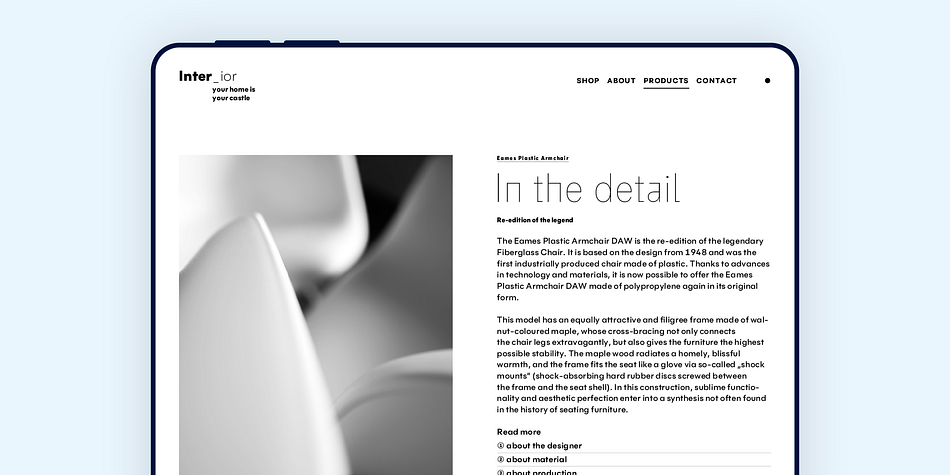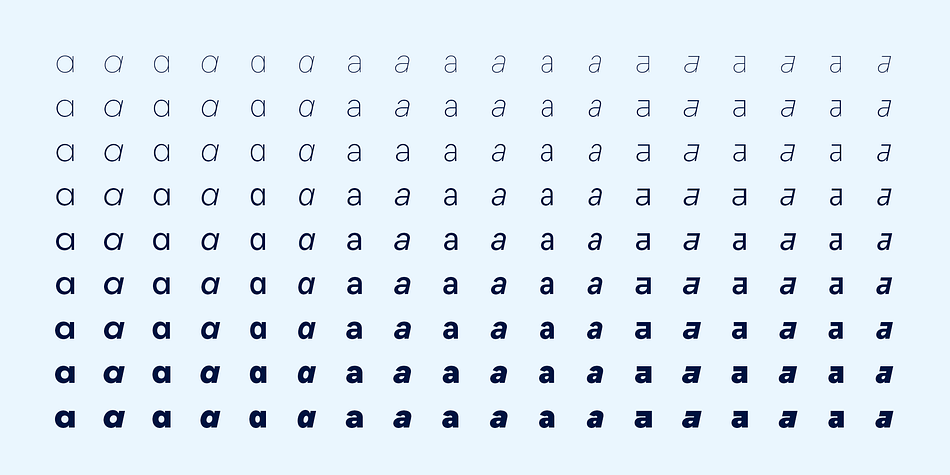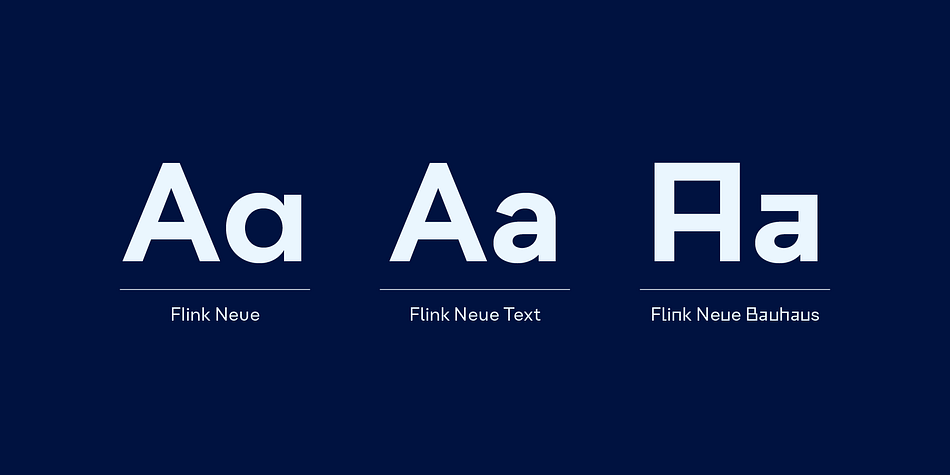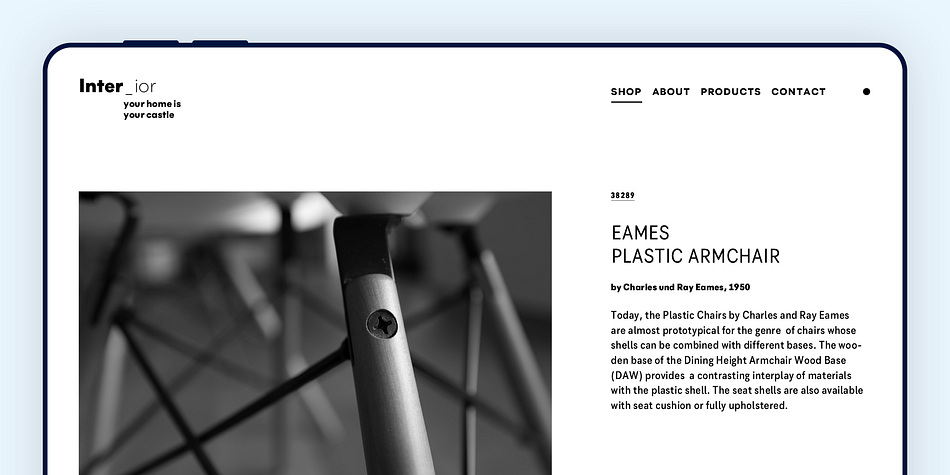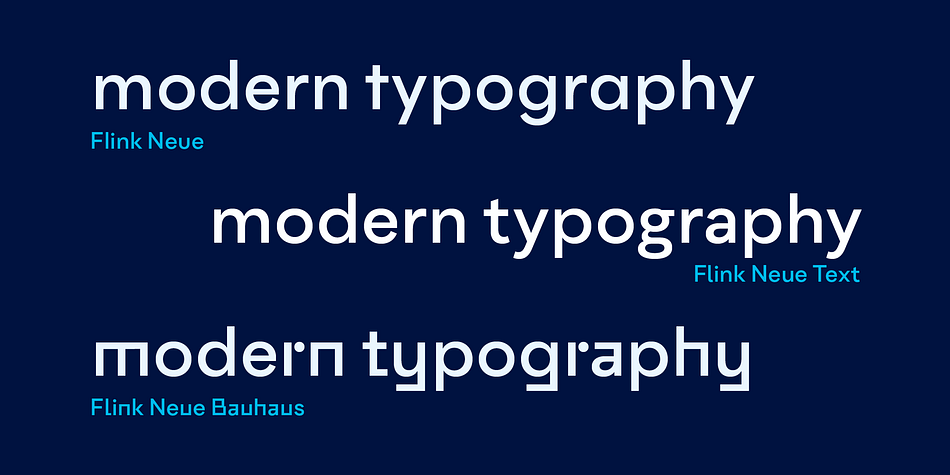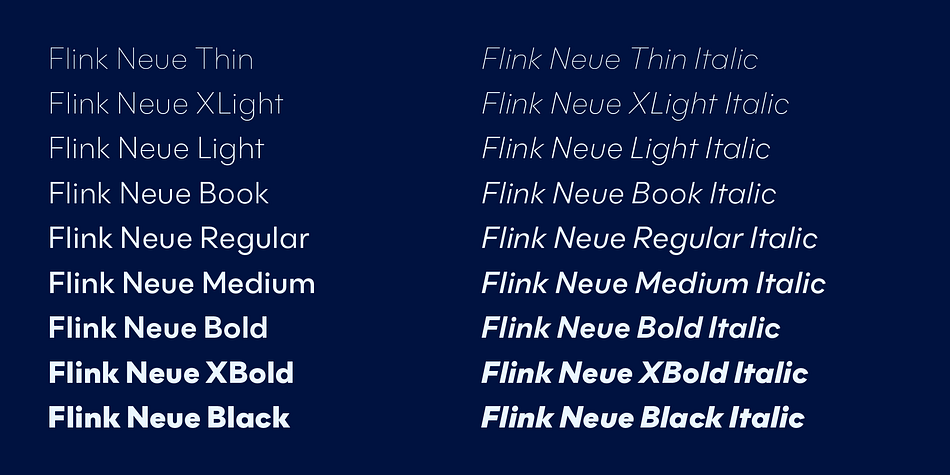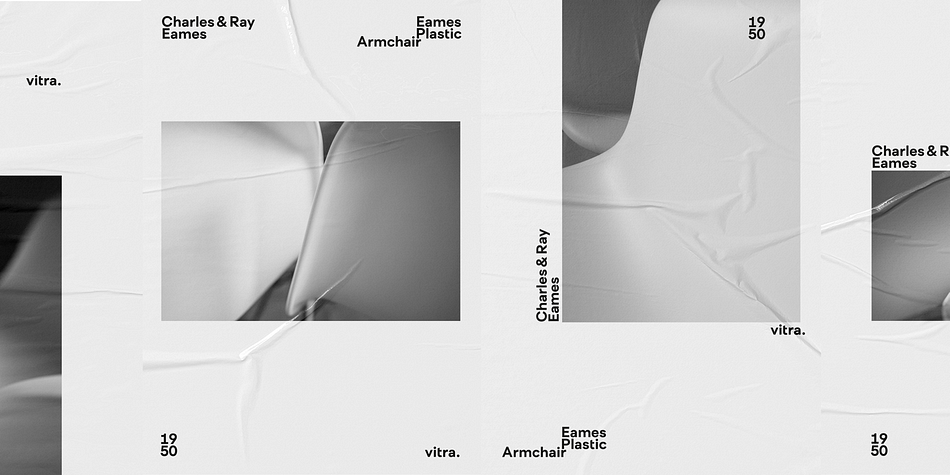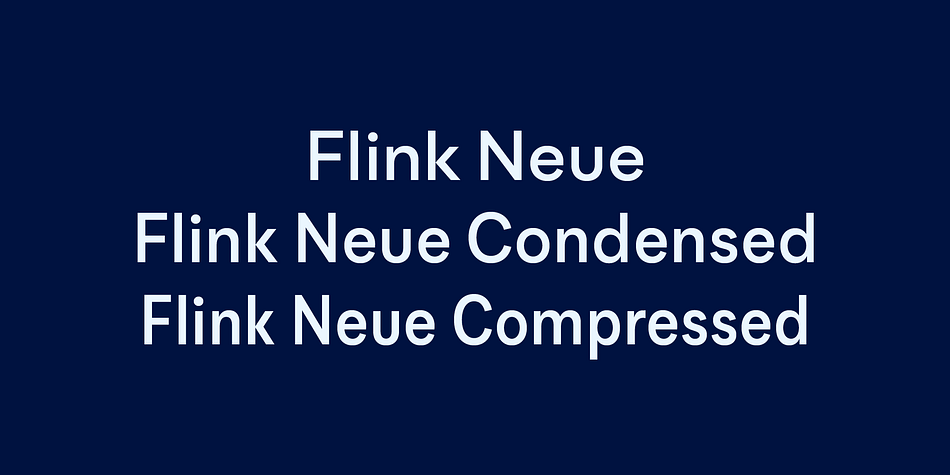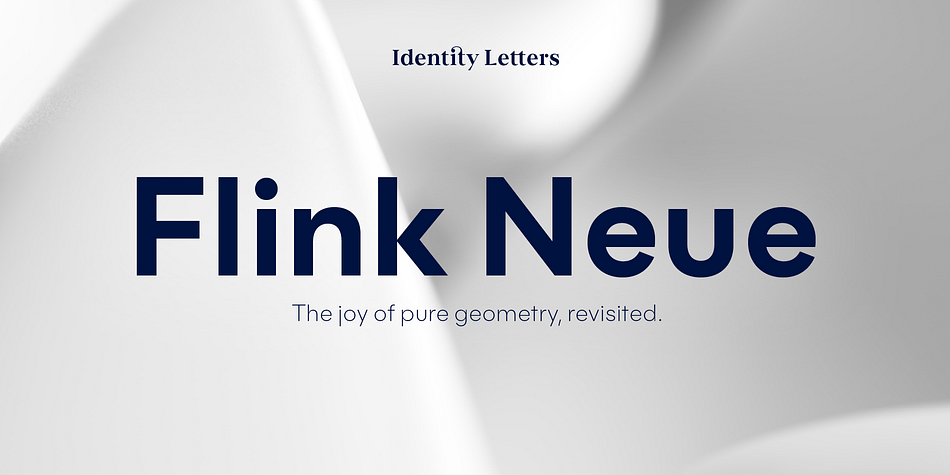
Flink Neue
Designed by Moritz Kleinsorge, Flink Neue is a sans serif font family. This typeface has one hundred and sixty-two styles and was published by Identity Letters.
It was a time when iconic faces such as Futura, Erbar, and Kabel appeared on the scene and turned the world of type upside-down.
Inspired by those early giants as well as later epigones with a legacy of their own (such as 1970’s Avant Garde Gothic), Flink Neue is the Identity Letters take on this genre, characterized by a clean and focused appearance.
With neat shapes and the look of pure geometry, Flink Neue adapts to a vast range of applications and topics, from the fine print in contract to website body copy to logo design to billboard-size slogans.
Its x-height is considerably larger than in classic geometric sans-serif fonts; its proportions are harmonized as opposed to strictly constructed.
With three different widths, Flink is a true all-rounder.
Geometric fonts are usually quite wide, which often leads to text-settings problems with headlines or small print.
The Condensed and Compressed variants of Flink Neue solve this problem easily.
With an axis for width, weight and italic you can change the font at will to achieve the desired look.
There are almost 1400 characters per style, including nine stylistic sets that offer variations to the look and feel of Flink Neue, making it even more versatile.
Plenty of additional Open Type Features like ligatures, small caps, case sensitive forms, old-style figures, tabular figures and symbols make Flink Neue a valuable tool for the discerning typographer.
Flink Neue is the reimagination of a classic genre, designed to suit the needs of our time.
Displaying the beauty and characteristics of the Flink Neue VF font family.
Highlighting the Flink Neue VF font family.
Geometric typefaces are a staple in every typographer’s toolbox since the 1920s. It was a time when iconic faces such as Futura, Erbar, and Kabel appeared on the scene and turned the world of type upside-down. Inspired by those early giants as well as later epigones with a legacy of their own (such as 1970’s Avant Garde Gothic), Flink Neue is the Identity Letters take on this genre, characterized by a clean and focused appearance.
With neat shapes and the look of pure geometry, Flink Neue adapts to a vast range of applications and topics, from the fine print in contract to website body copy to logo design to billboard-size slogans. Its x-height is considerably larger than in classic geometric sans-serif fonts; its proportions are harmonized as opposed to strictly constructed. This makes for a more contemporary look, setting it apart from the classics. With three different widths, Flink is a true all-rounder. Geometric fonts are usually quite wide, which often leads to text-settings problems with headlines or small print. The Condensed and Compressed variants of Flink Neue solve this problem easily.
This font family comes along in 18 weights from Thin to Black with matching Italics. There are almost 1400 characters per style, including nine stylistic sets that offer variations to the look and feel of Flink Neue, making it even more versatile. Besides the default mood of Flink Neue, there is also a Text and Bauhaus variant, where different letters have been changed to create a new mood. In theory, you just need one single font file to change between all three moods, but to make it easier for you, we also exported each mood within a separate file. Plenty of additional Open Type Features like ligatures, small caps, case sensitive forms, old-style figures, tabular figures and symbols make Flink Neue a valuable tool for the discerning typographer.
Flink Neue is the reimagination of a classic genre, designed to suit the needs of our time.
Designer Moritz Kleinsorge